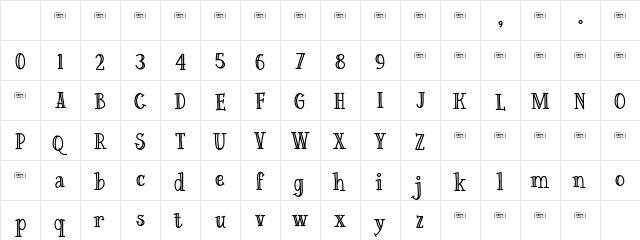
Complete Storiffy Free Trial Regular glyph index. Displaying only characters natively supported by Storiffy Free Trial Regular font.
Storiffy Free Trial is a composed and adaptable typeface that performs quietly and consistently across a wide range of design contexts.